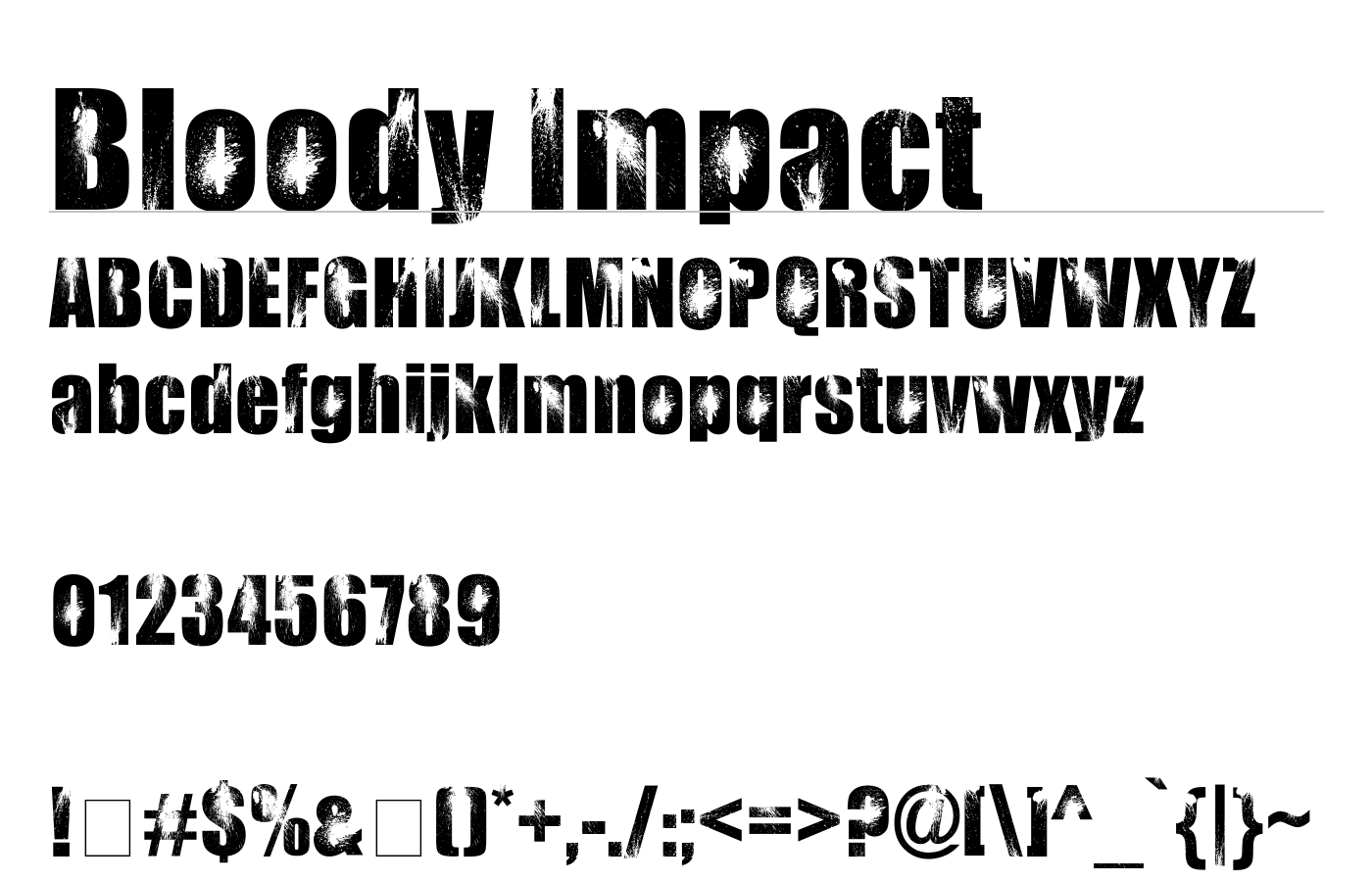
Bloody Impact is a bold, condensed sans serif font with a distressed, grunge texture that gives it a raw, edgy character. Its strong, blocky letterforms combined with the rough, worn-out effect make it perfect for designs that need a gritty, impactful presence such as posters, horror or thriller themes, and edgy branding. This font commands attention with its heavy weight and urban, rebellious vibe, ideal for making a striking statement in headlines and display uses.
Bloody Impact Font
About Bloody Impact Font